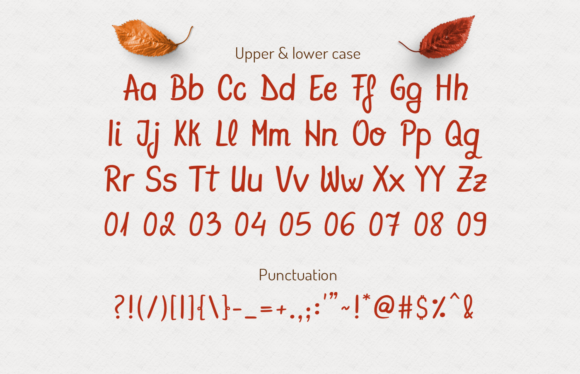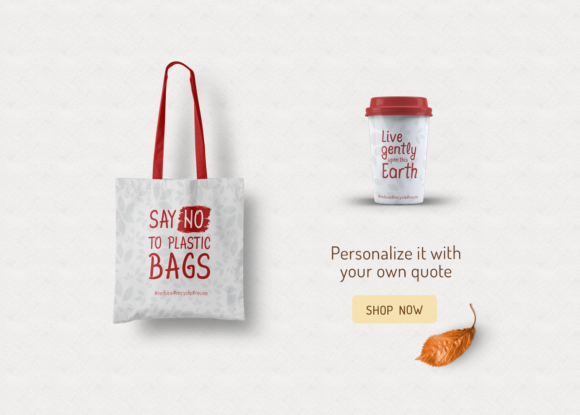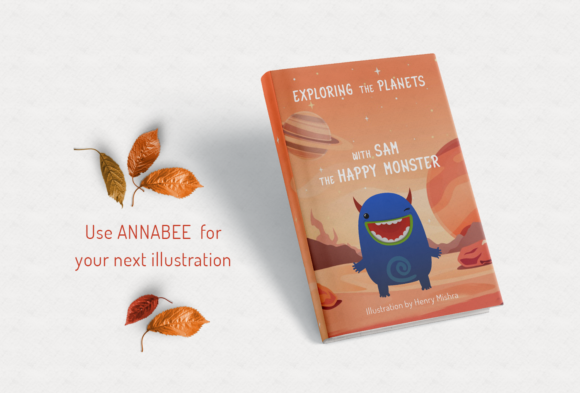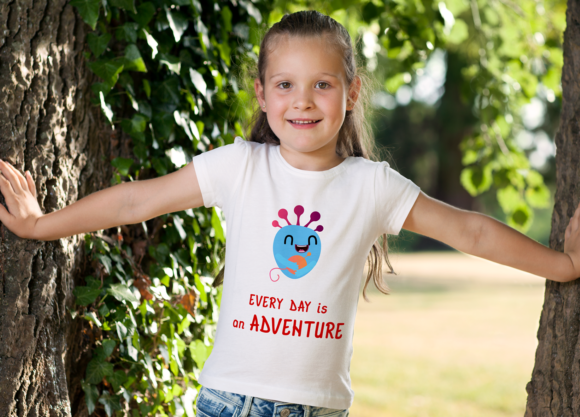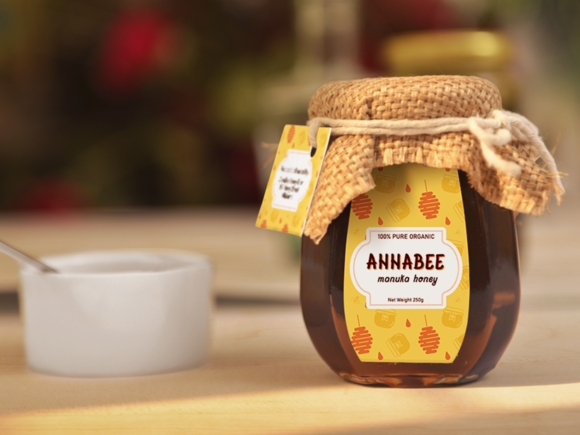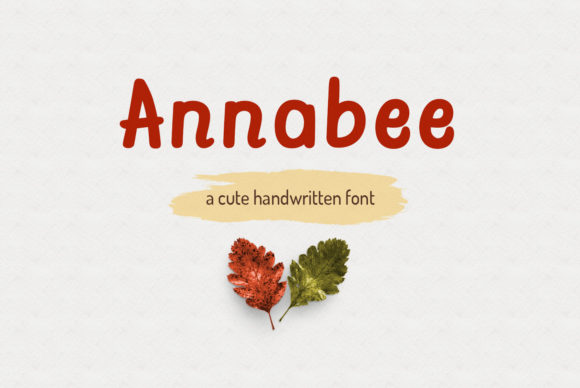
The Sweet Spot: Discovering the Charm of Annabee Font
I’ll never forget the time I was working on a project for a client’s wedding invitation suite. I had a clear vision of a whimsical, garden-party vibe, but I was struggling to find the perfect font to bring it all together. That’s when I stumbled upon Annabee Font, a sweet and friendly handwritten font that instantly captured the essence of the design. Its natural and unique style made it incredibly fitting for a wide range of designs, and I knew right then and there that I had found my new go-to font.
What I Love About Annabee Font
- ✨ Unique and Handwritten Charm: Annabee Font has a distinct, handcrafted feel that adds a touch of personality to any design.
- ✅ Versatility: This font can be used for a wide range of projects, from wedding invitations and party decor to branding and packaging.
- 💫 Easy to Read: Despite its unique style, Annabee Font remains highly legible, making it perfect for both headings and body text.
- 🎨 OpenType Features: Annabee Font comes with a range of OpenType features, including glyphs and stylistic alternates, that allow for endless creativity.
While Annabee Font is an amazing addition to any design project, there are a few things to keep in mind:
- ⚠️ Limited Use in Small Sizes: Due to its handwritten nature, Annabee Font may not be the best choice for very small text sizes, as it can become difficult to read.
- 🤔 Kerning Can Be a Bit Tricky: As with any handwritten font, kerning can be a bit tricky, especially when pairing Annabee Font with other fonts.
The Story Behind Annabee Font
Annabee Font was designed with the intention of creating a unique and friendly handwritten font that could be used for a wide range of designs. The designer, inspired by the beauty of handwritten letters and the joy of creating something new, poured their heart and soul into crafting a font that would bring a touch of personality to any project.
Q: What is Annabee Font and how can I use it?
Annabee Font is a sweet and friendly handwritten font that can be used for a wide range of designs, from wedding invitations and party decor to branding and packaging.